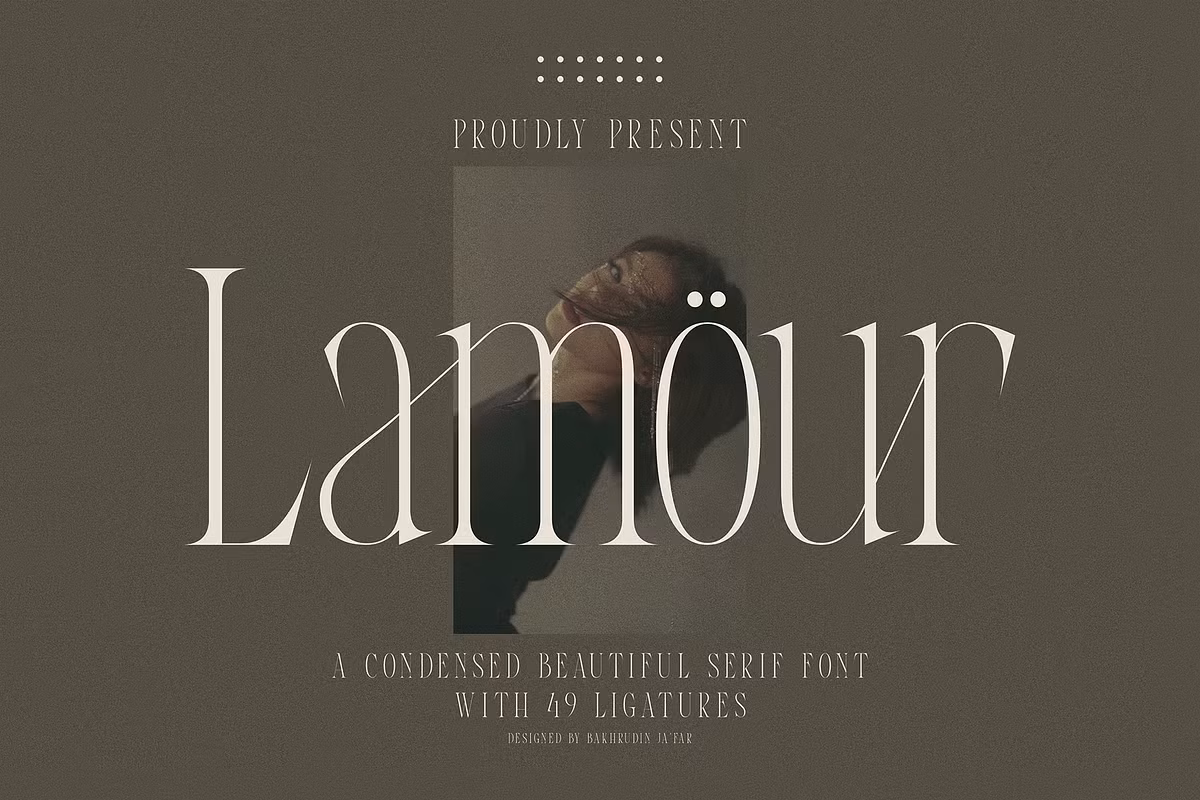
Lamour | Modern Cool Serif Font Free Download is a sleek and contemporary serif typeface that adds a stylish, professional touch to your designs. Perfect for logos, branding, websites, and editorial projects, Lamour combines modern design elements with classic serif structure, creating a bold yet refined look. Its unique character and elegant lines make it ideal for projects that require both sophistication and readability.